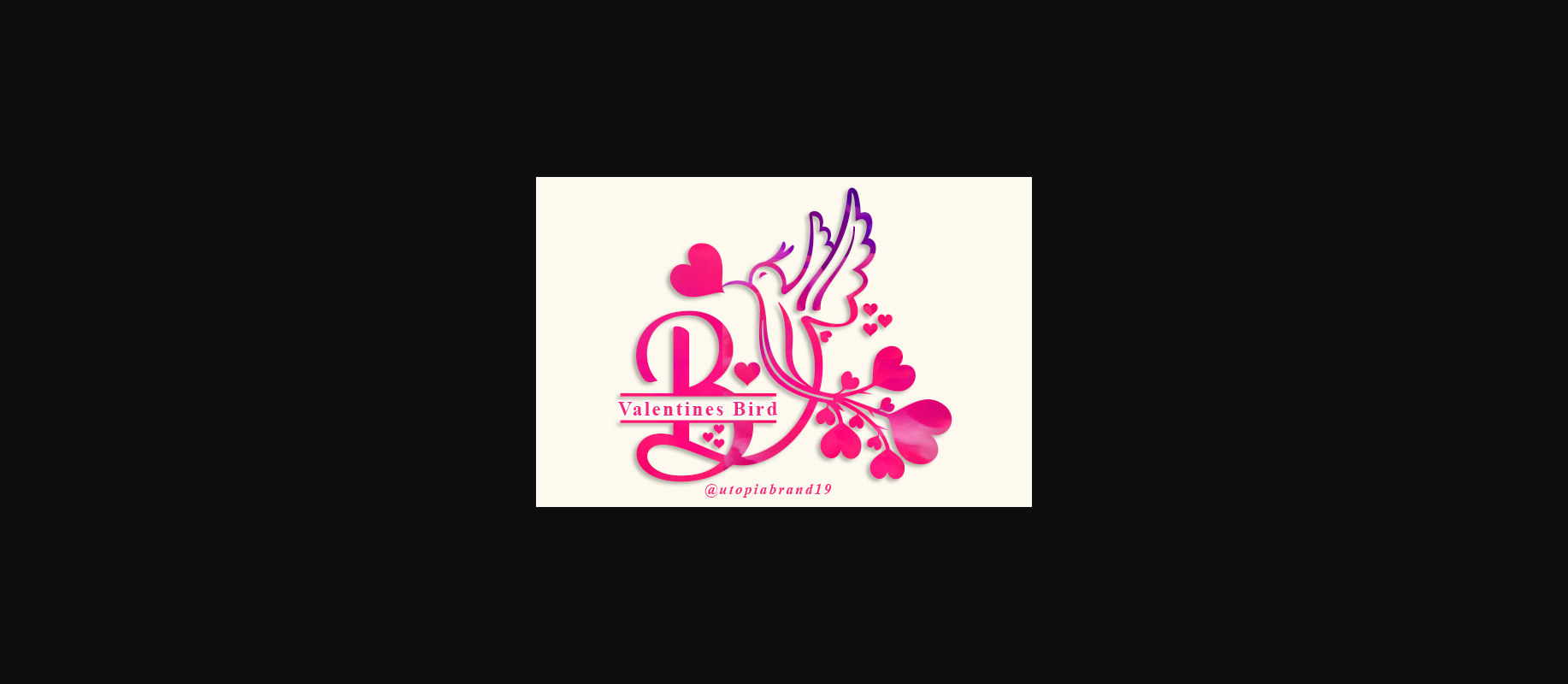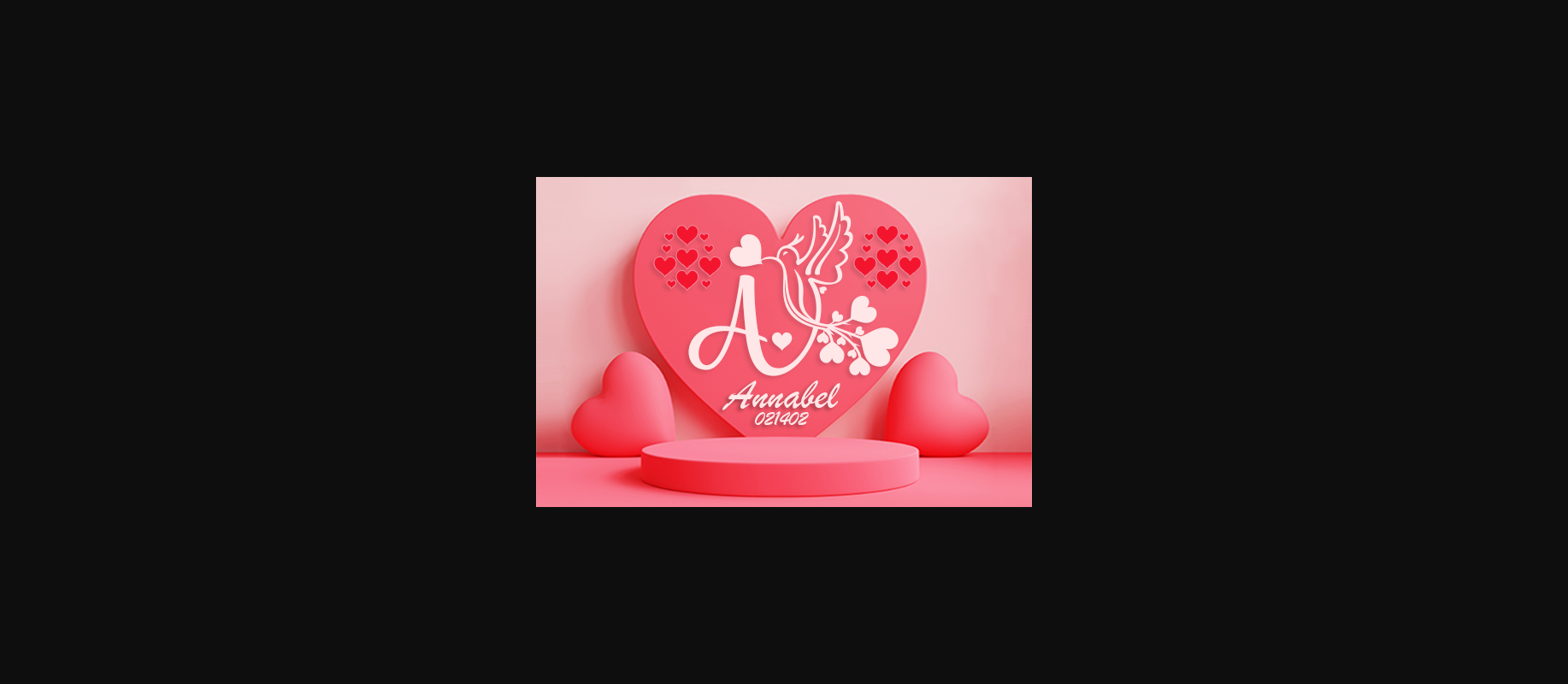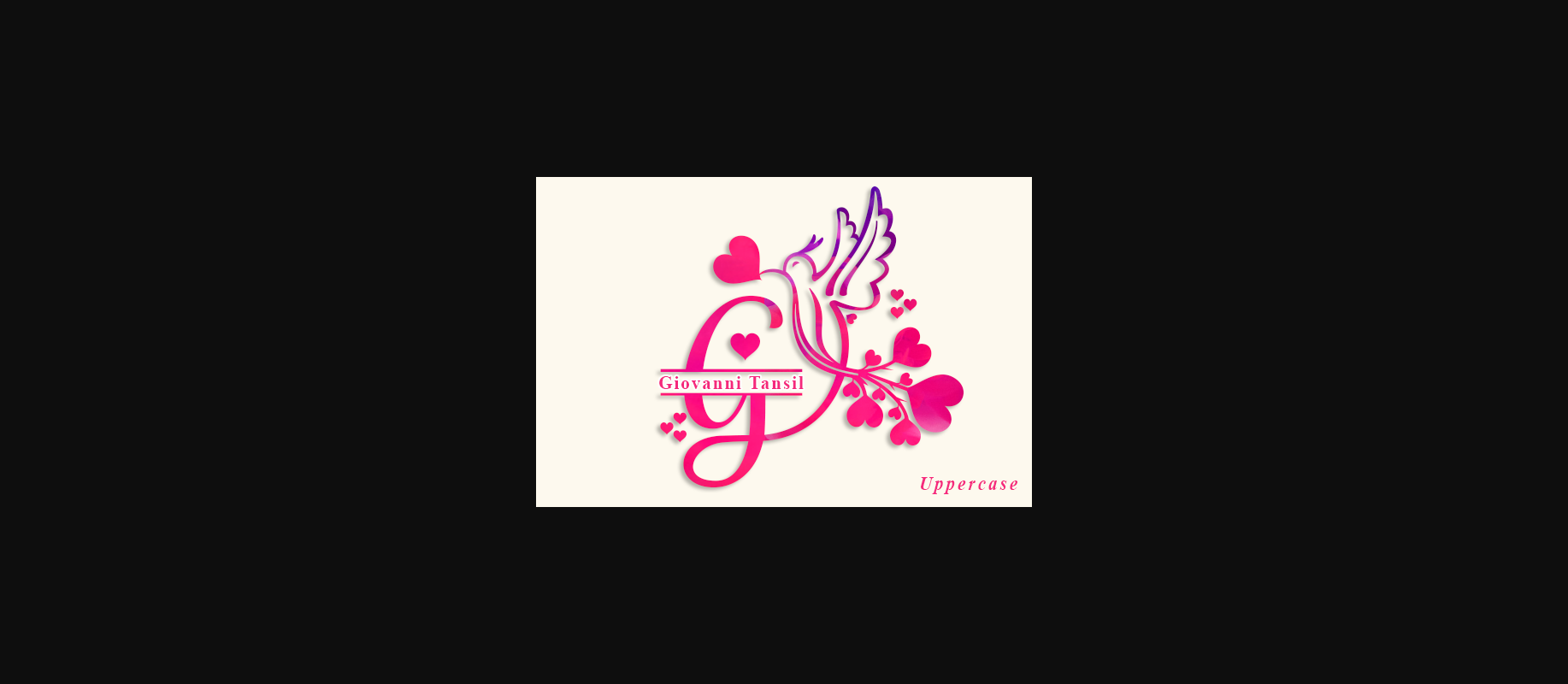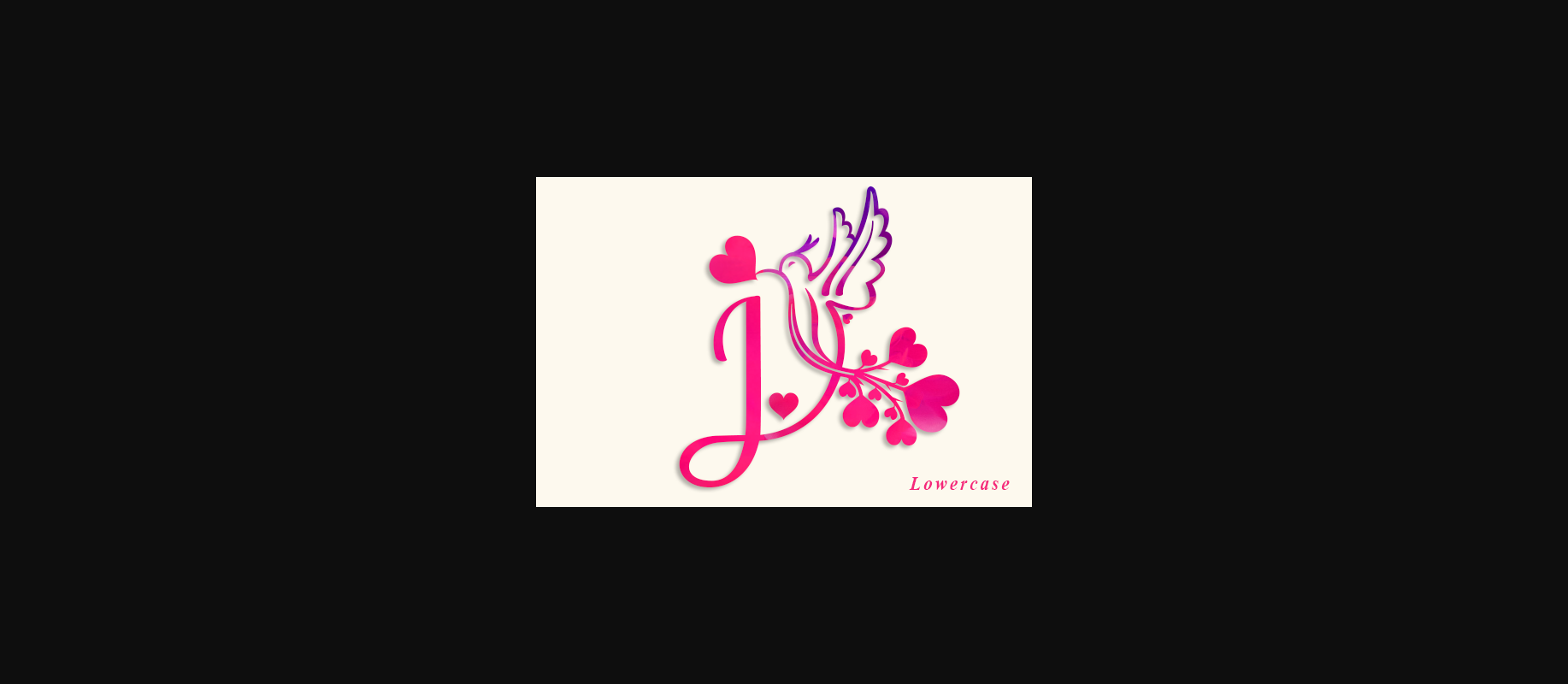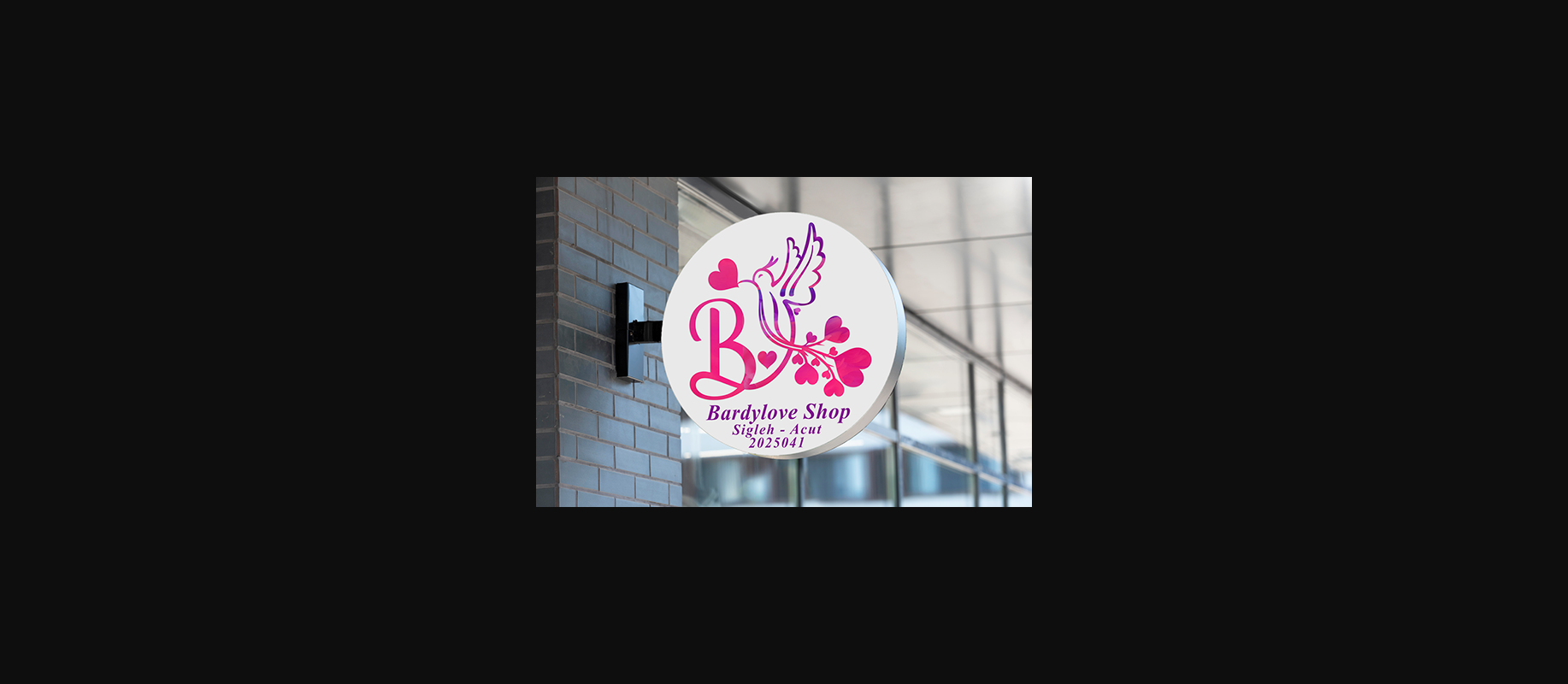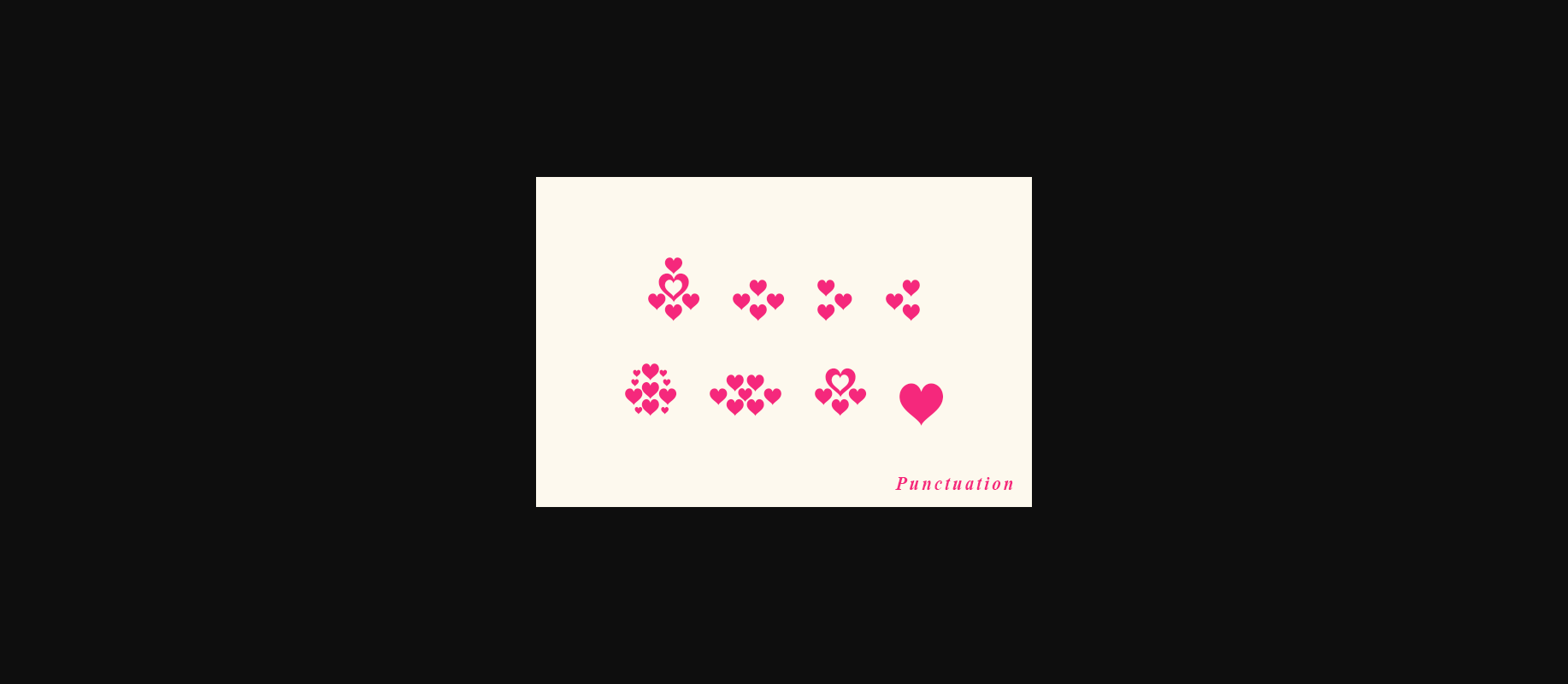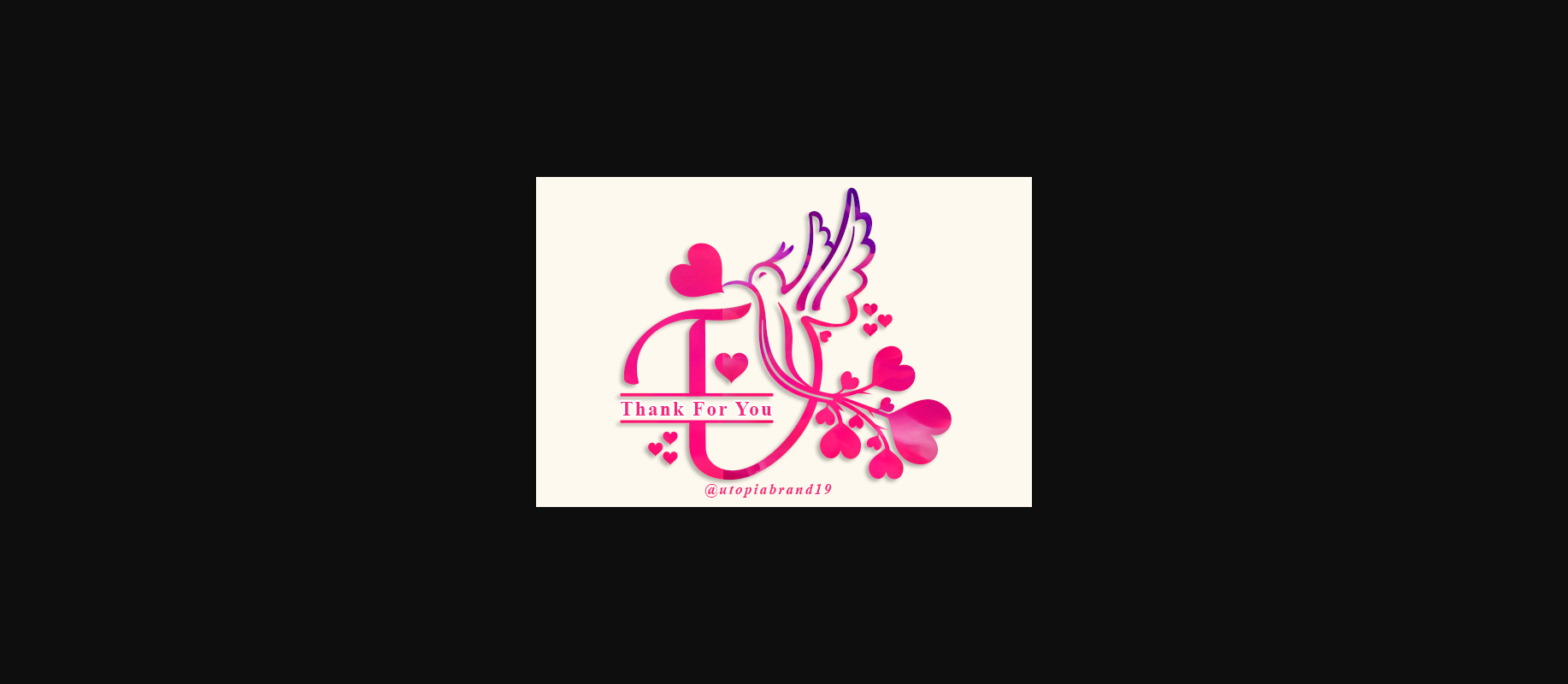
Valentines Bird Monogram Font
About Valentines Bird Monogram Font
Valentines Bird Monogram is a refined decorative font, featuring charming ornaments. Fall in love with its genuine feel and use it to create ravishing wedding invitations, beautiful stationary art, eye-catching social media posts, and cute greeting cards.